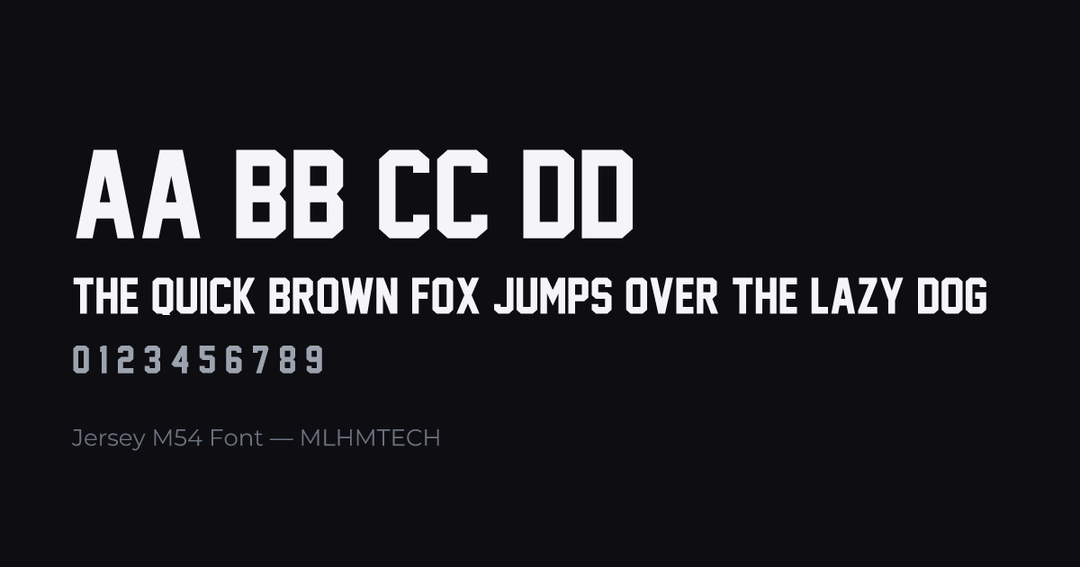
Jersey M54 Font
Jersey M54 is a bold, condensed display font with a sporty, vintage feel. Ideal for headlines, posters, and athletic branding.
Jersey M54 is a striking display typeface that exudes energy and nostalgia. Its condensed, bold letterforms are reminiscent of classic sports jerseys and vintage signage, making it a versatile choice for projects that need a strong, attention-grabbing presence.